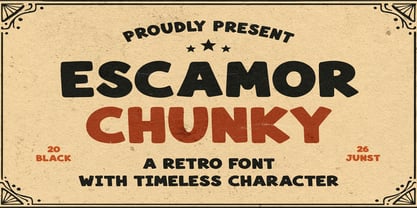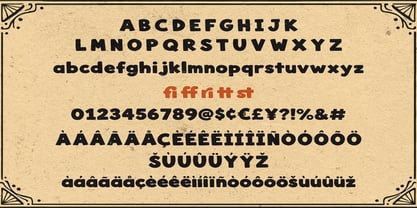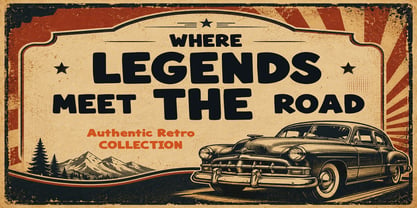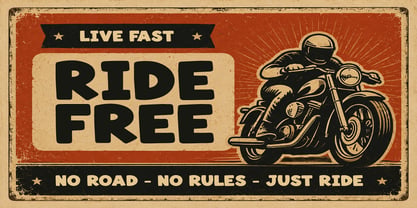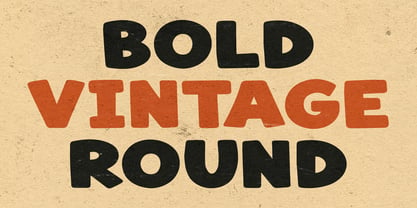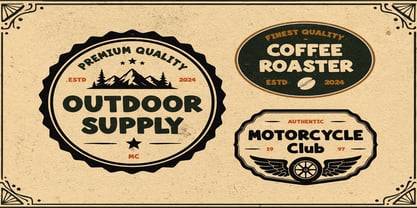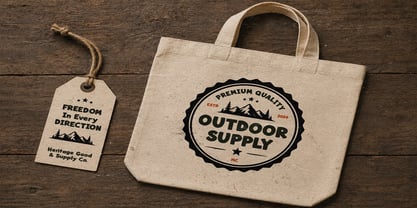
Escamor
by Black Junst
The Escamor Font Family was designed by Maulana Semar and published by Black Junst. Escamor contains 1 styles. More about this family
Escamor Chunky is a bold retro display font inspired by vintage signage, nostalgic packaging, classic diners, and timeless advertising from the 60s and 70s. Featuring thick, rounded letterforms with a handcrafted personality, this typeface instantly brings warmth, fun, and authenticity to any creative project.
Designed to make headlines stand out, Escamor Chunky combines a playful vintage aesthetic with excellent readability. Whether you're creating logos, branding, posters, merchandise, packaging, café menus, or social media graphics, this font delivers a strong retro character that never goes out of style.
Perfect for designers who love bold typography with a nostalgic twist.